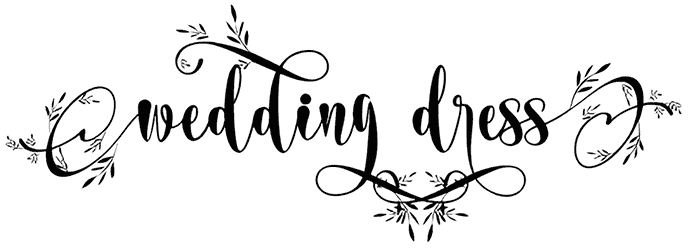
Wedding Dress Font
Dress your text up with a Wedding Dress, its enchanting look captivates your viewers. This wedding font has a lux and handsome mood and can be used for many various projects regardless of its tough reading. Set Wedding Dress on invitation cards, fashion designs, covers, or any other design you are working on it and delight it.